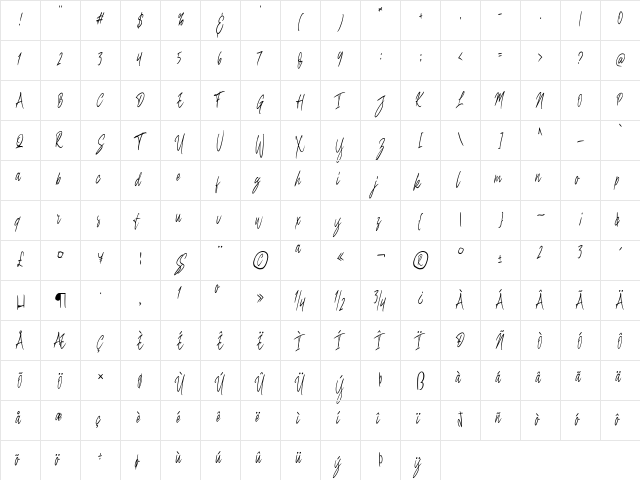
Benefits pumpkin Script Regular
Design Context for Benefits pumpkin Script Typeface
Benefits pumpkin Script flows with the natural rhythm of handwritten lettering, making it ideal for designs that call for warmth and personal expression.
Font Pairing: Combine Benefits pumpkin Script with a simple geometric sans for maximum contrast — the tension between flowing curves and clean structure is a classic typographic pairing.
Pro Tip: Pair Benefits pumpkin Script with a clean sans-serif for supporting text. The contrast between fluid script and geometric structure creates an elegant typographic hierarchy.